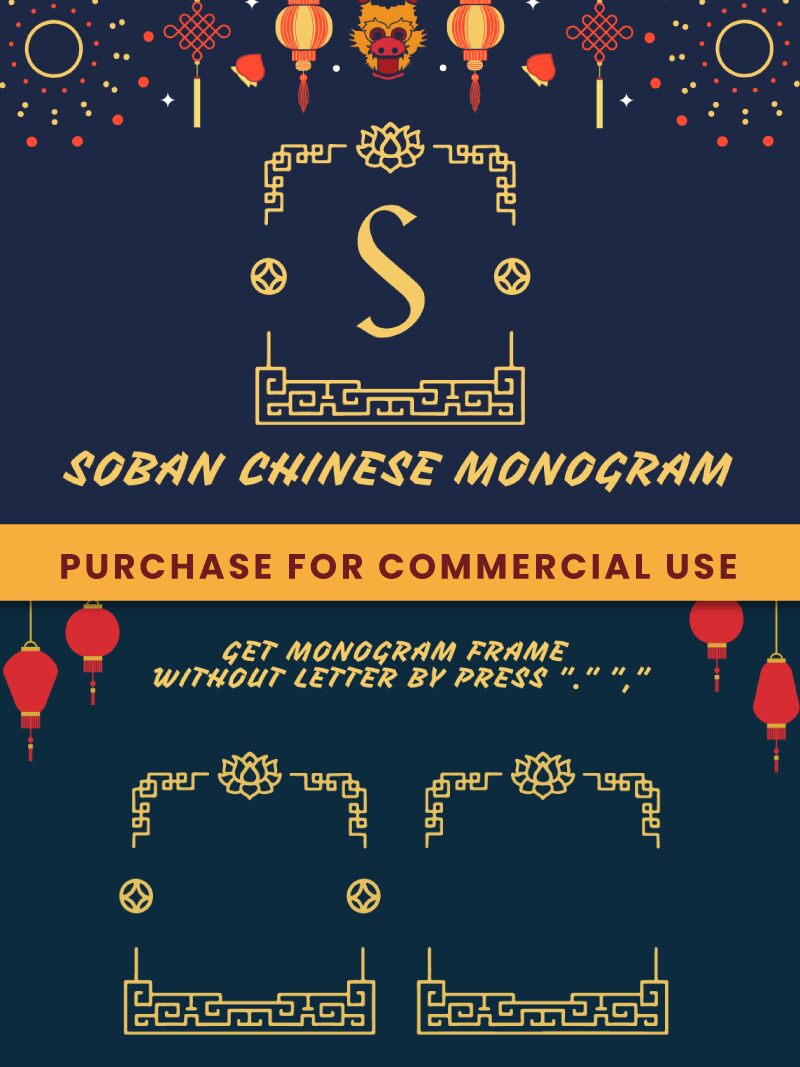
Soban Chinese Monogram, crafted by Attype Studio, is a display font that beckons with its decorative flair and condensed form. With strokes that evoke the intricacy of East Asian calligraphy, this font marries tradition with modern design sensibilities. Each character is a tapestry of elegance and boldness, making it an exquisite choice for designers aiming to infuse their work with cultural richness and contemporary chic.
This font's condensed nature makes it ideal for headlines or branding where space is at a premium yet impact is paramount. Imagine it gracing the covers of books, the signage of boutique stores, or the splash pages of luxury websites-anywhere that design seeks to make a statement with cultured sophistication.
Soban Chinese Monogram stands as a testament to typography as an art form, inviting creators to explore its potential in crafting visually compelling narratives.